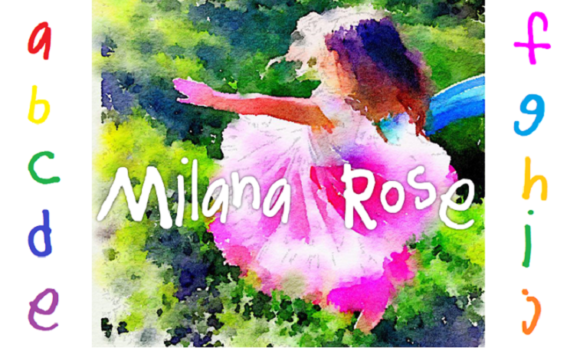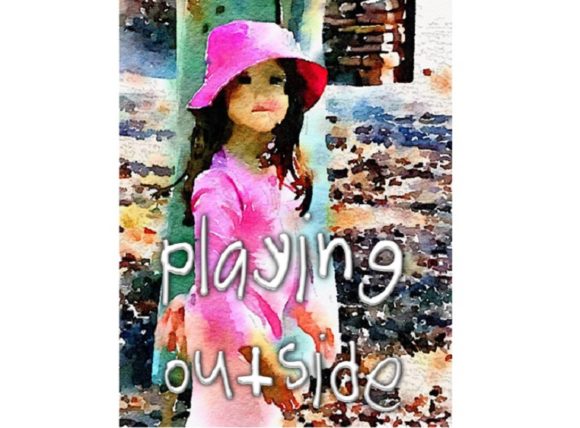
Milana Rose Font
About Milana Rose Font
Milana Rose is a whimsical handwritten font with a joyful feel. Use it to add a child’s touch to your next project with this simple, carefree font.